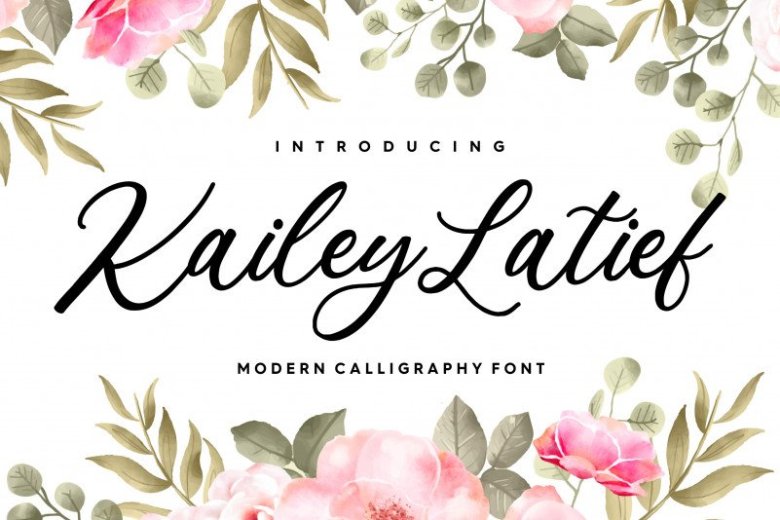
Kailey Latief Calligraphy Font
Kailey Latief Calligraphy Font.
Kailey Latief is perfect for product packaging, branding project, megazine, social media, wedding, or just used to express words above the background.
This font is suitable for headline, logotype, apparel, invitation, branding, packaging, advertising etc.
This typeface is comes in uppercase, lowercase, punctuations, symbols & numerals, stylistic set alternate, ligatures, etc also support multilingual.